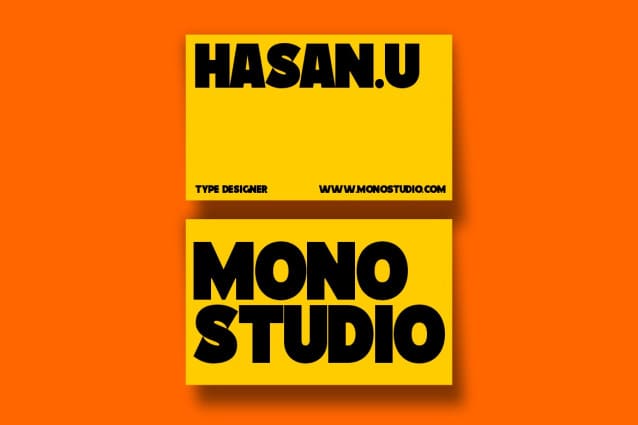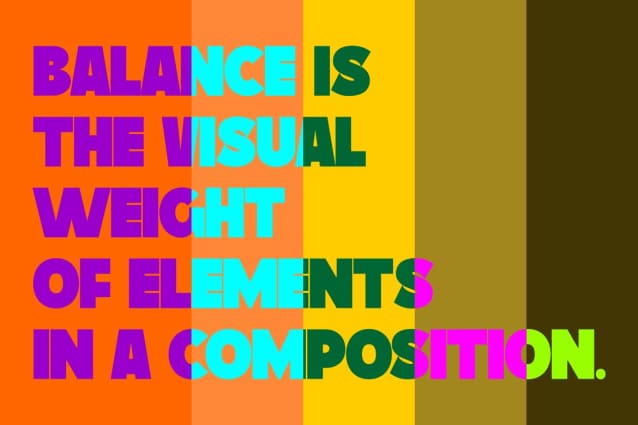
Ariola Sans Font
Ariola Sans Font is a modern stylized Sanserif font inspired by extended style display font, which is made strong and dynamic, a great font for printing logos, labels, flyers, brochures, signage, craft brands, anything related to modern style, etc.